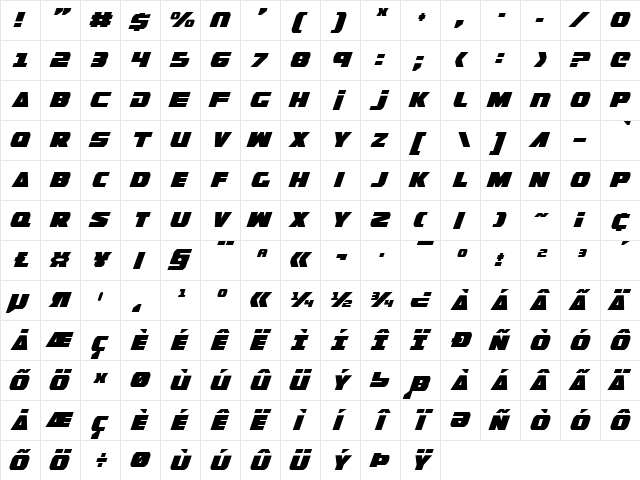
Guardian Condensed Italic Condensed Italic
| Designer | Dan Zadorozny |
Guardian Condensed Italic is a composed and adaptable typeface that performs quietly and consistently across a wide range of design contexts. The slanted form adds forward momentum and visual energy. The condensed width makes it efficient for tight spaces without sacrificing legibility.